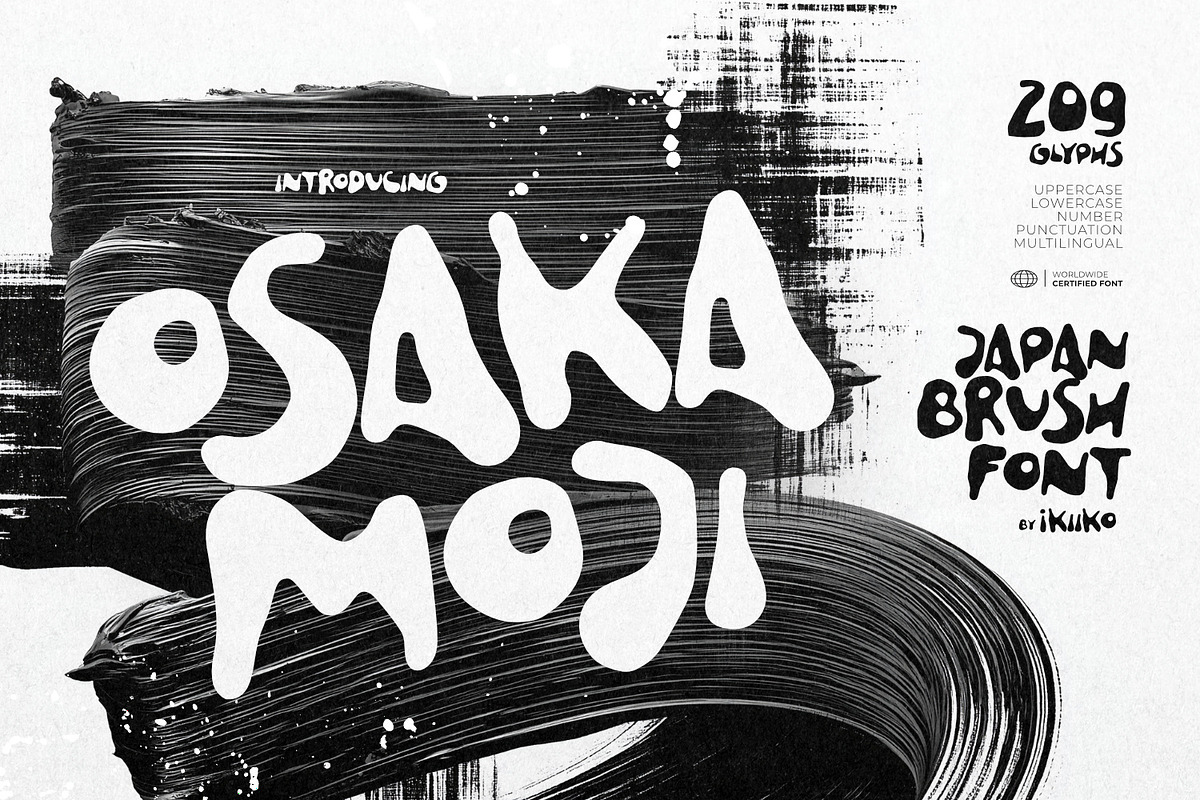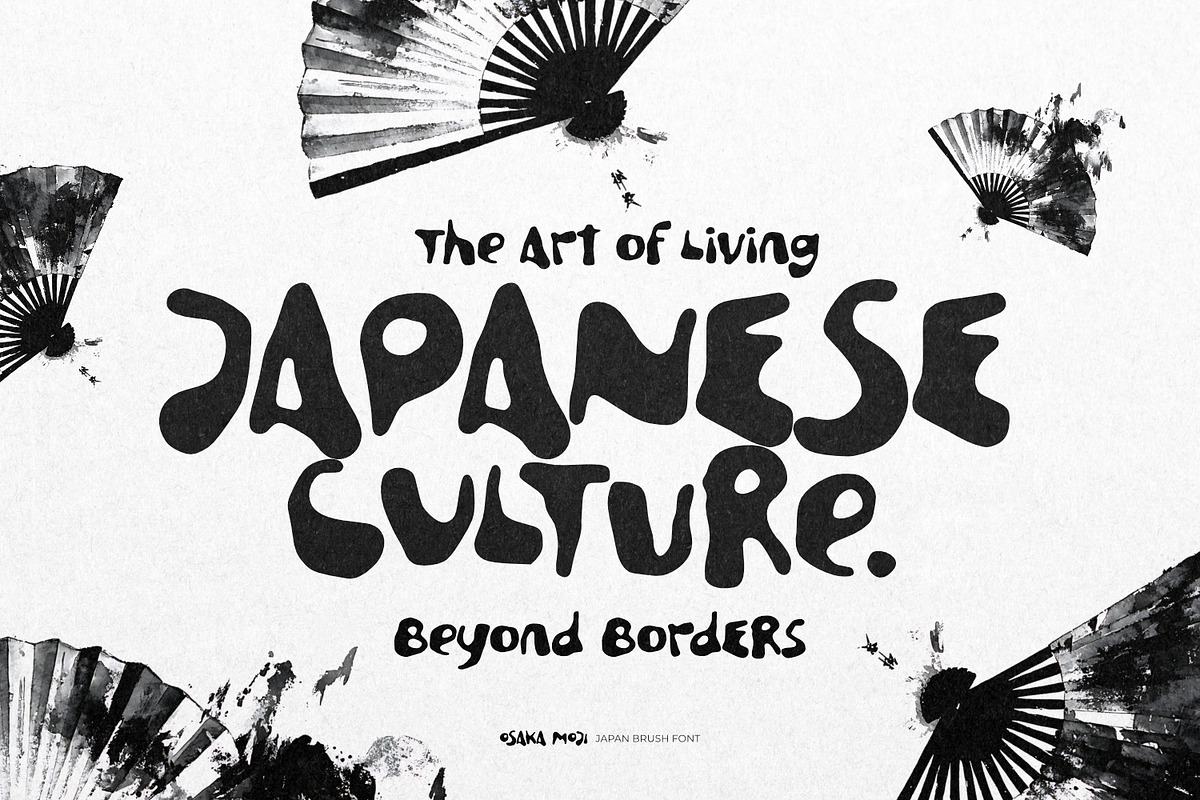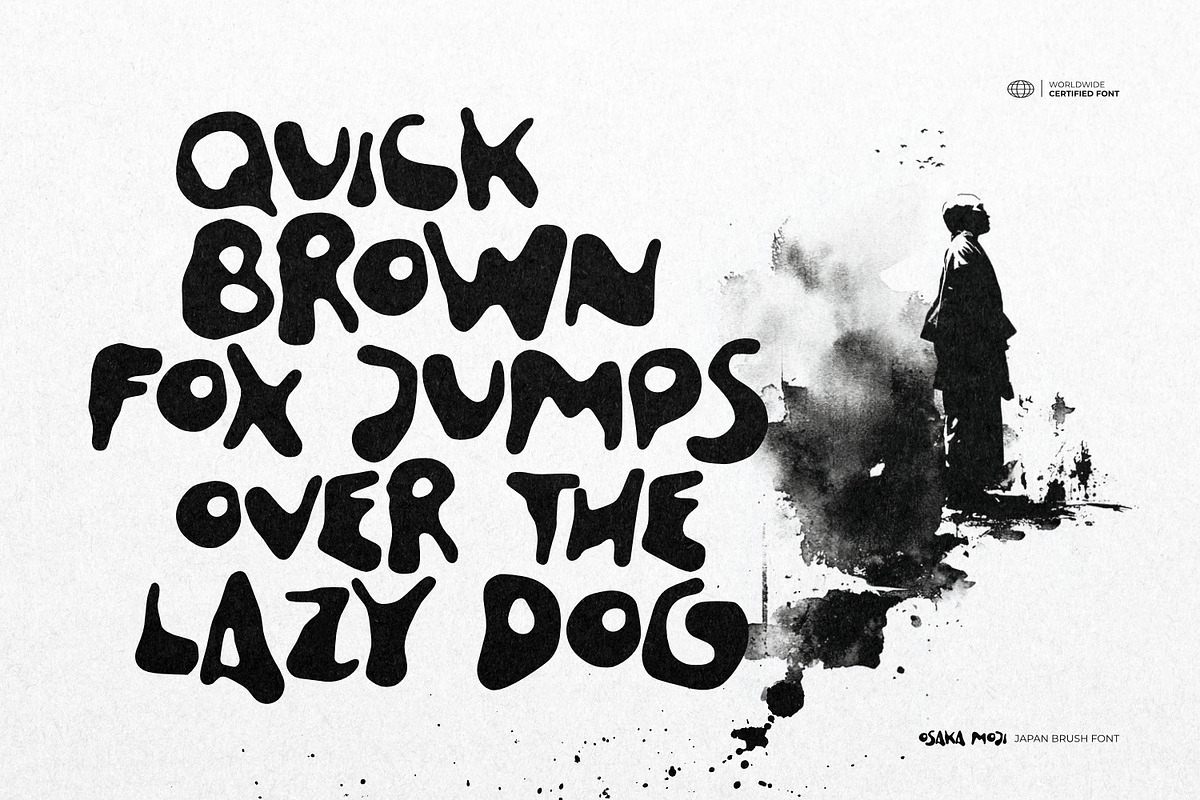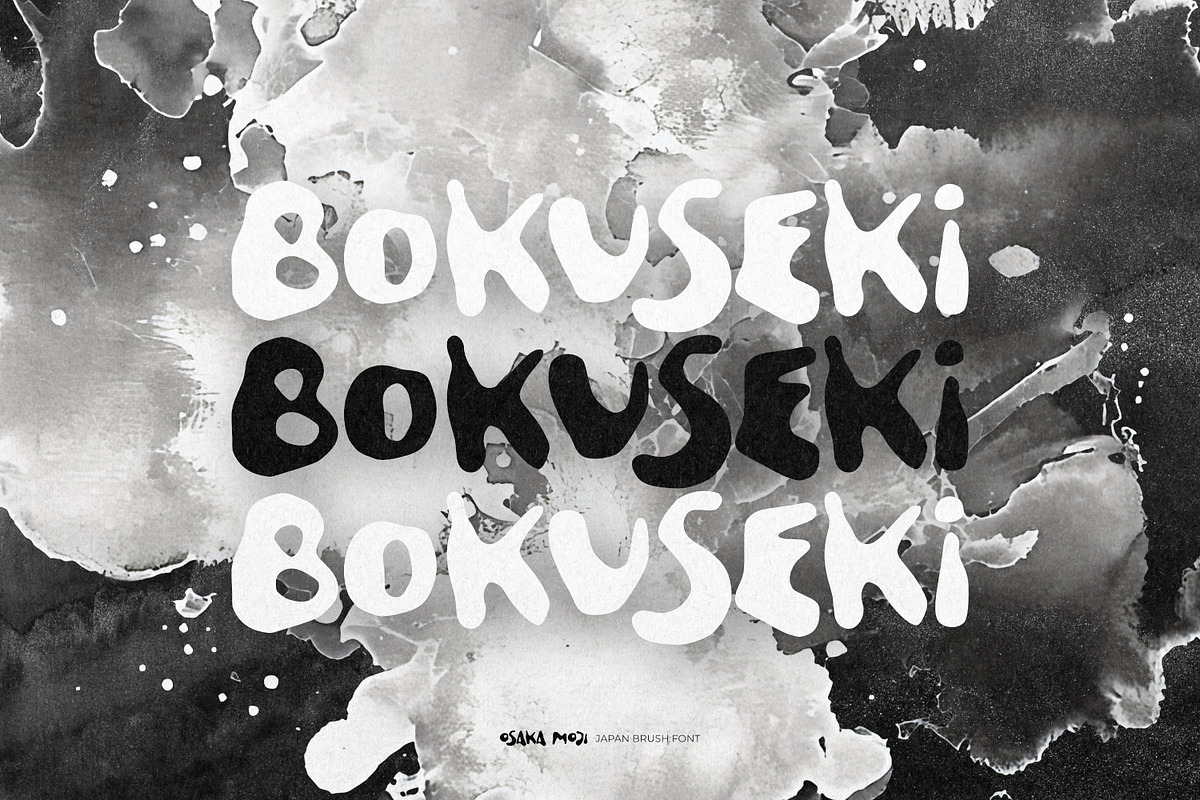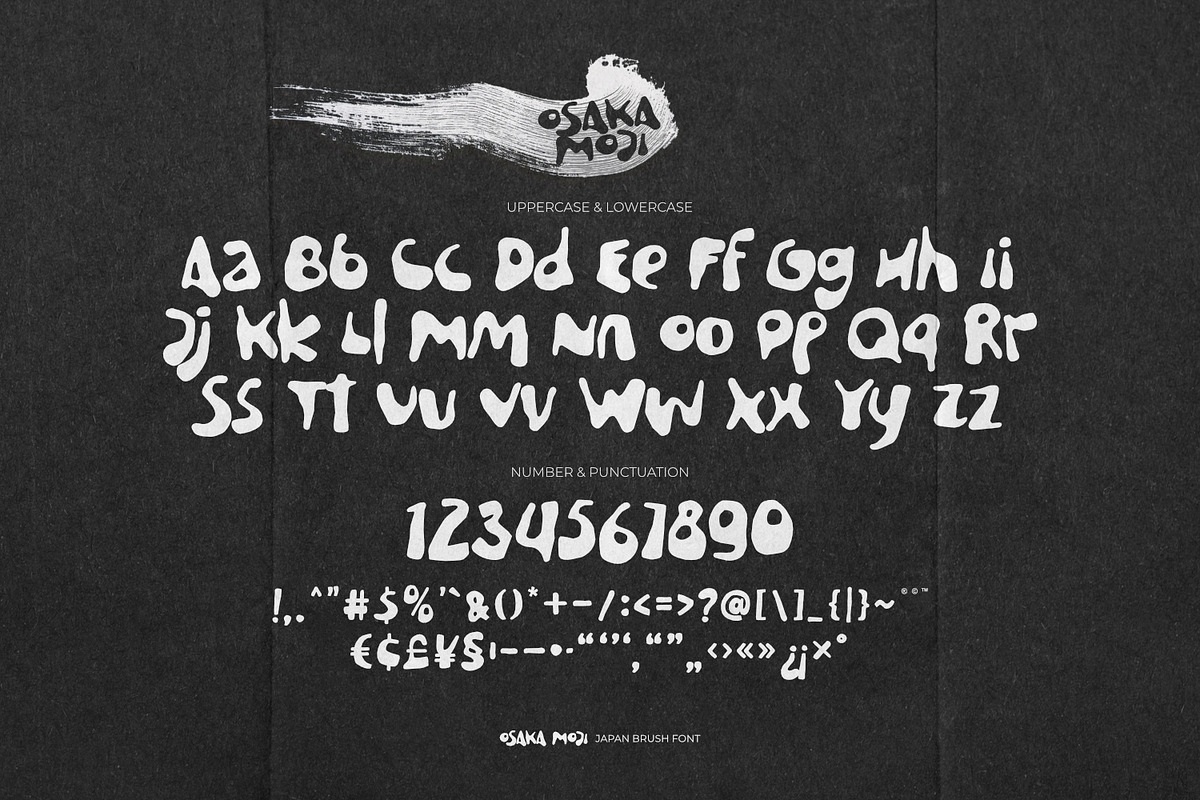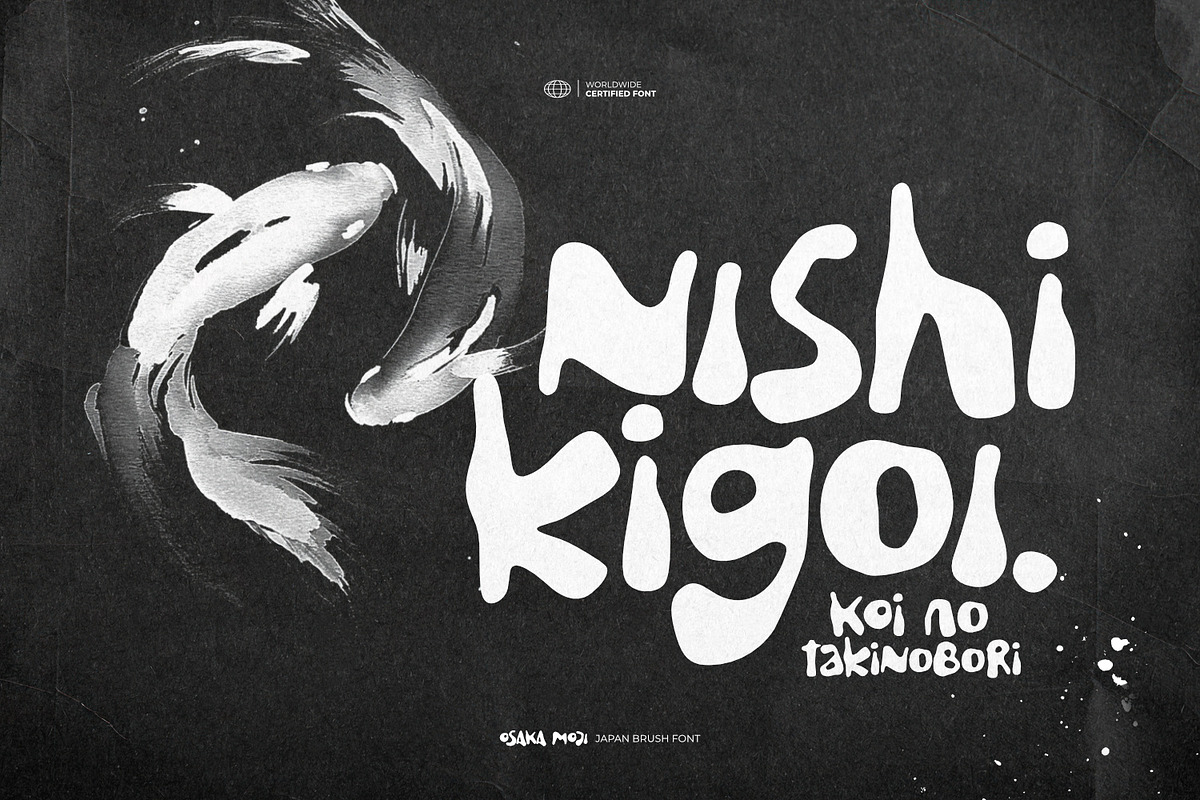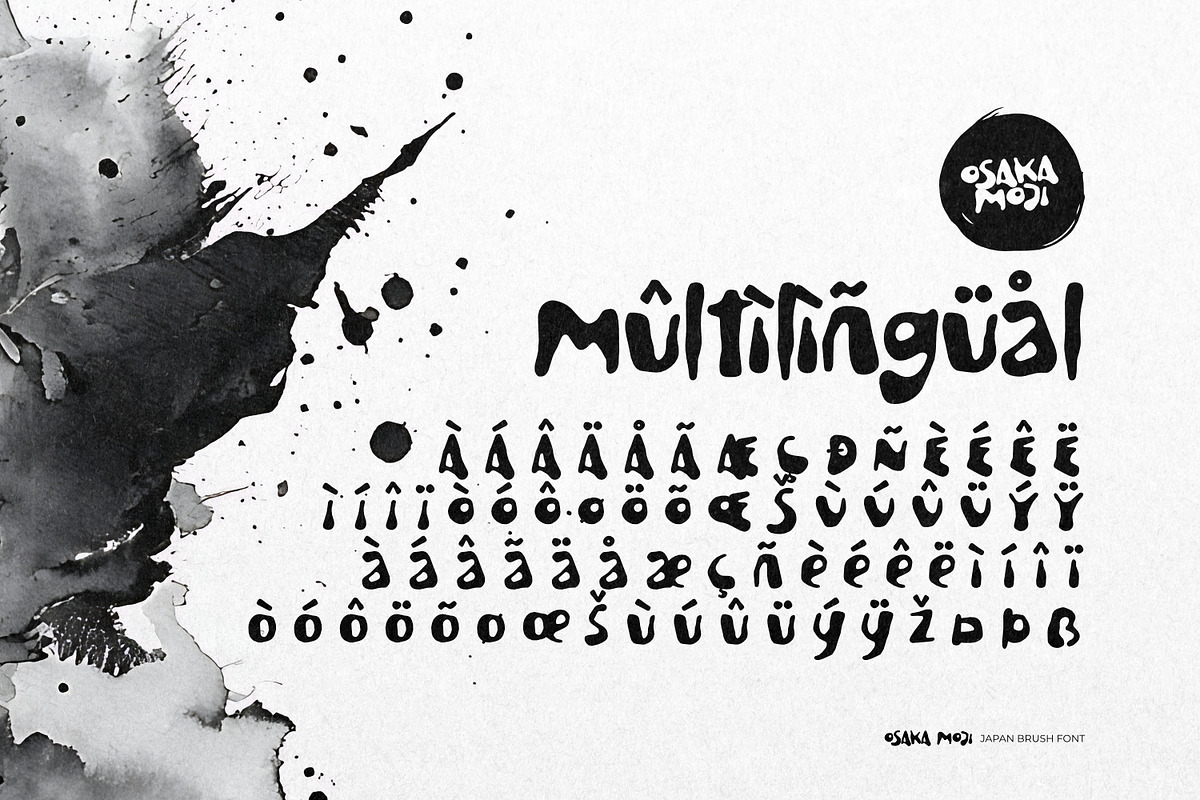
Osaka Moji - Japan Brush Font
Proudly Present Osaka Moji - Japan Brush Font, created by ikiiko
Unleash the raw energy of Japanese street culture with Osaka Moji, a modern Zen brush font that flows like liquid ink. Every stroke is organic, expressive, and untamed, capturing the rhythm of brush calligraphy with a stylish, fashion-forward edge.
Inspired by the pulse of Japan’s urban vibes, this font fuses Zen tradition with modern energy—perfect for designers who want type that feels alive, bold, and effortlessly cool. With its fluid forms and textured brush details, Osaka Moji is both raw and refined, balancing expressive motion with stylish modernism.